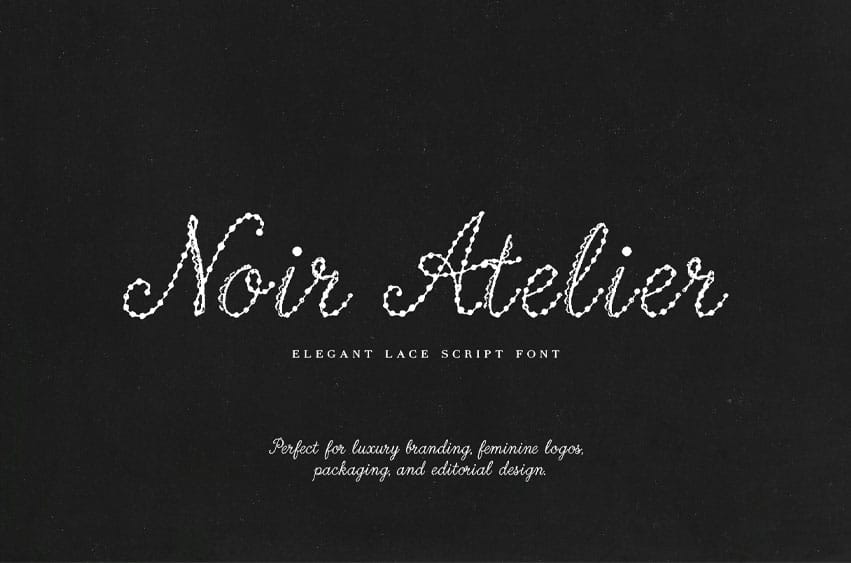
Noir Atelier Font is an elegant lace-inspired script font designed with a romantic, handcrafted character.
Ideal for luxury logos, feminine branding, perfume packaging, wedding stationery, fashion editorials, and dark romantic design projects.